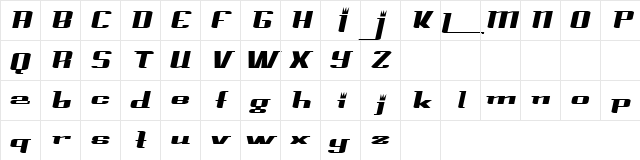
PrinceAlbert Italic
PrinceAlbert Family
PrinceAlbert Italic
Design Context for PrinceAlbert
PrinceAlbert is a composed and adaptable typeface that performs quietly and consistently across a wide range of design contexts. The slanted form adds forward momentum and visual energy.
Pro Tip: Use PrinceAlbert for emphasis, pull quotes, and subheadings where its slanted energy can add rhythm to the layout.